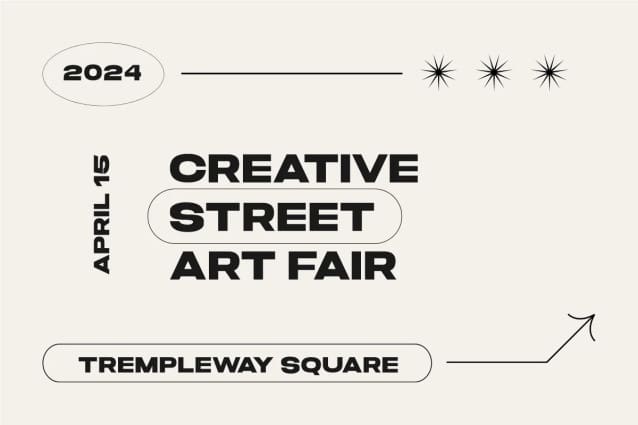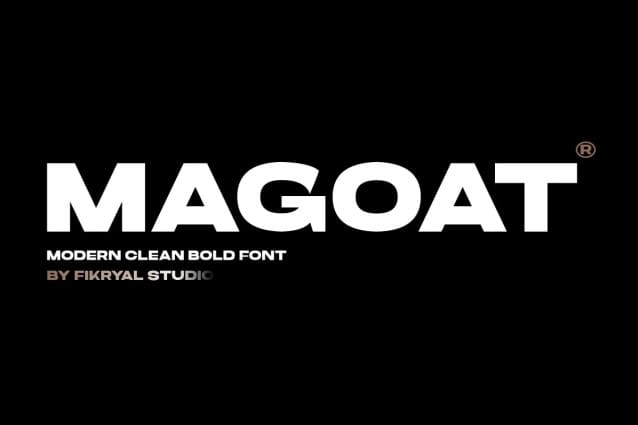
Magoat Font
Magoat Font – Modern Clean Bold Font is the perfect choice to infuse a contemporary and bold touch into your graphic design projects. With its distinctive All Caps style, Magoat has the ability to capture attention with clarity and courage. Each character is designed with precision, showcasing the cleanliness and modernity that define this font.
With its bold shapes, Magoat is well-suited for titles, logos, and other design elements that require a strong and clear presence. Despite its bold appearance, the clarity of each letter is maintained, ensuring that your message is conveyed with precision and readability.
With Magoat Font, your design projects will gain a fresh, contemporary, and professional touch, bringing a clean and bold look to various visual platforms.